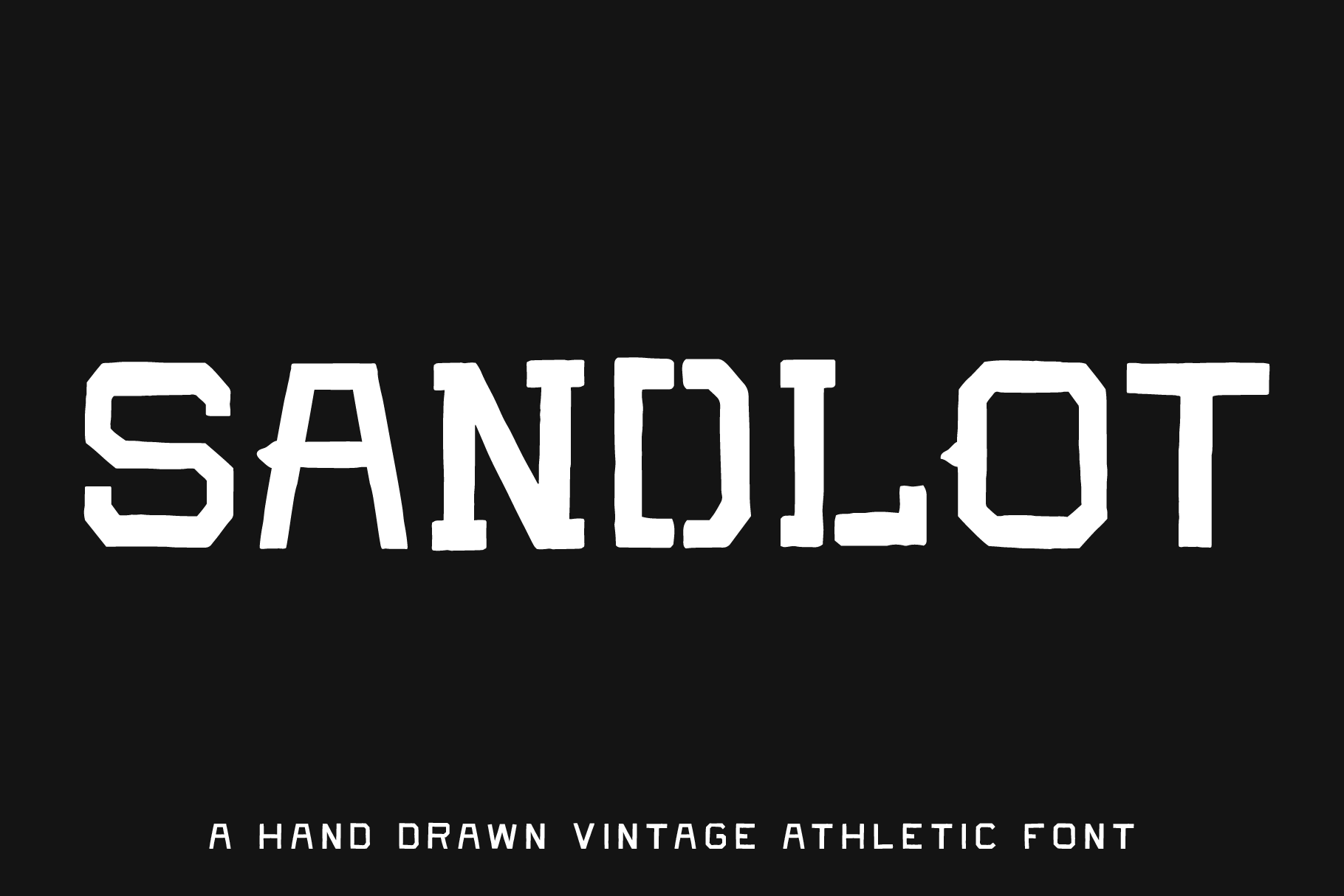
SANDLOT — 5 Vintage Athletic Fonts
SANDLOT was the perfect name for this font. When we hear "Sandlot" we think of some young scrappy kids who loved ball. This font is truly a representation of that attitude and energy. It's scrappy, rough around the edges, and ready to rumble. Perfect for apparel graphics, logos, and anything needing some 'won't take no mess' attitude.
Sandlot features 5 unique versions of the base font:
- Slab
- Stencil
- Stencil Slab
- Beast
It also comes equipped with all numbers and the necessary glyphs.